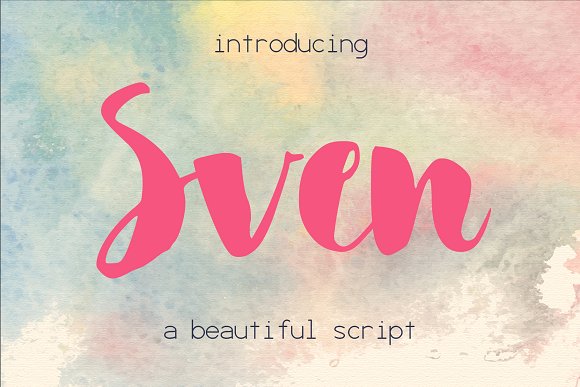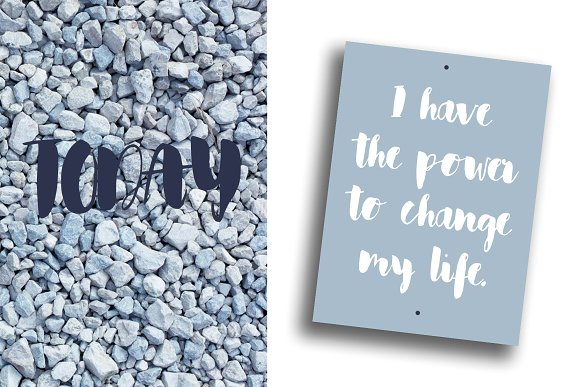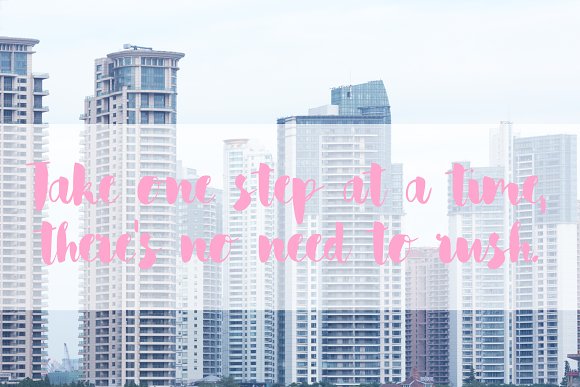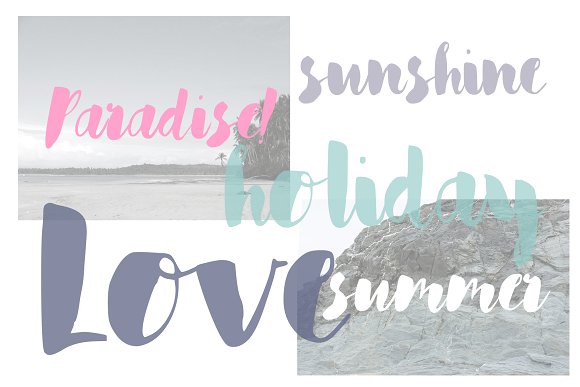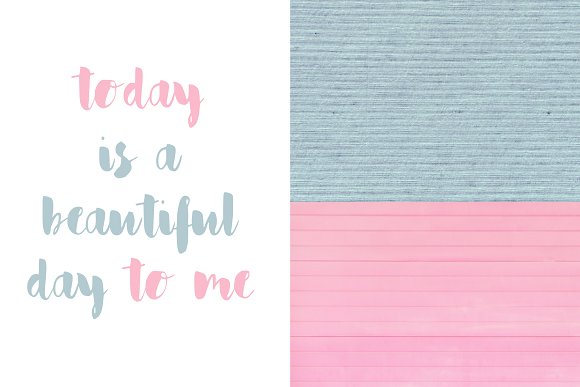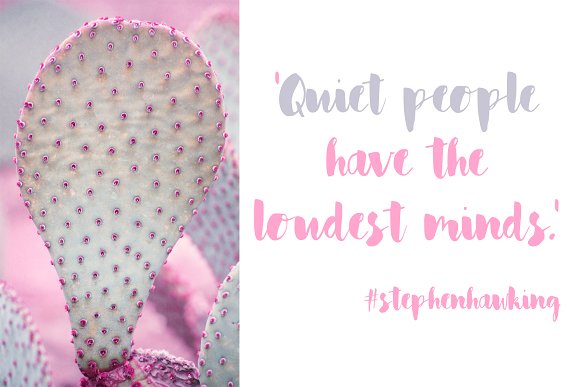
Sven Font
Introducing Sven, a beautiful cursive script.๐Ÿ’— Perfect for any graphic and logo designs, wedding and birthday invitations.
Sven font contains uppercase & lowercase characters, numbers and punctuations.